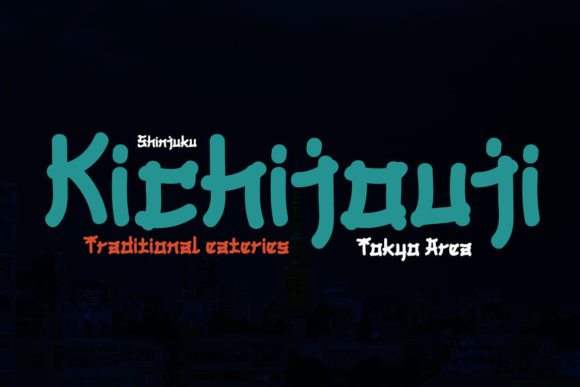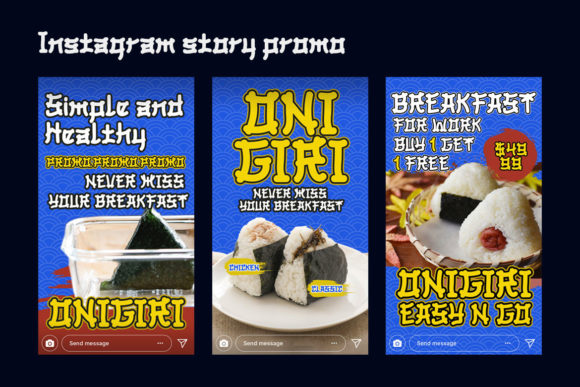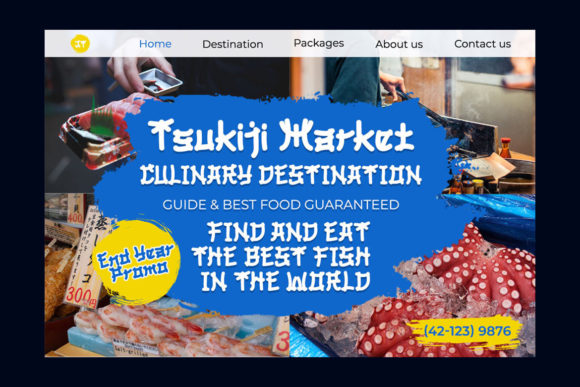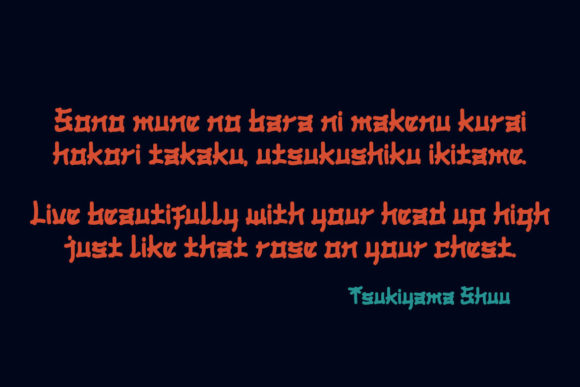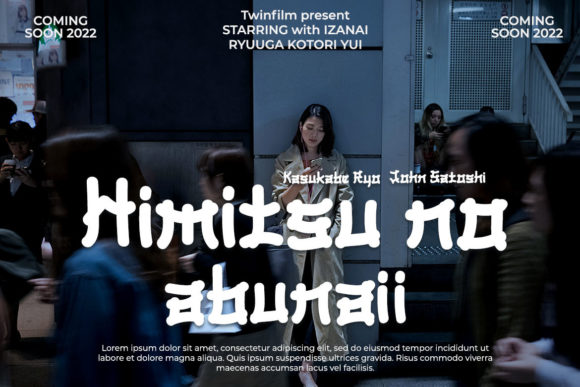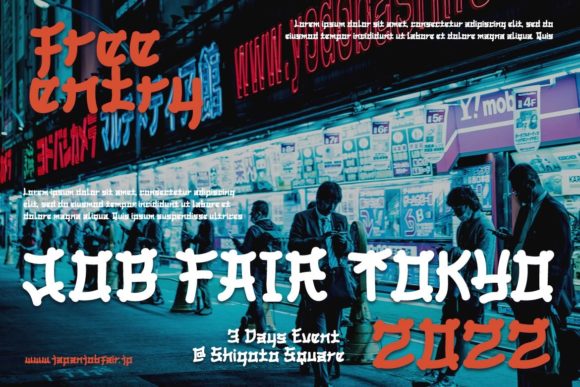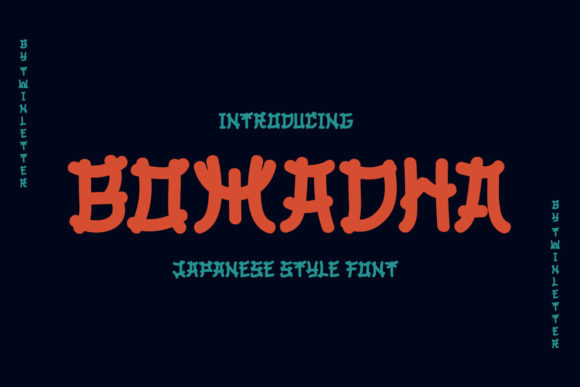
Bomadha Font: A Japanese-Inspired Display Font for Stunning Designs
Are you a designer or crafter looking for a unique and eye-catching font to elevate your visual projects? Look no further than Bomadha Font, an incredibly unique, Japanese-inspired display font that is sure to make your designs stand out. In this article, we’ll explore the features and benefits of Bomadha Font, and how it can be used to create stunning designs for food menus, posters, flyers, and more.
What is Bomadha Font?
Bomadha Font is a display font inspired by Japanese typography, characterized by its bold, expressive, and artistic style. The font features a distinctive blend of traditional Japanese elements and modern design sensibilities, making it perfect for designers who want to add a touch of cultural flair to their work.
Key Features of Bomadha Font
- Unique and eye-catching design: Bomadha Font boasts a one-of-a-kind design that is sure to grab attention and leave a lasting impression.
- Japanese-inspired style: The font’s Japanese inspiration adds a touch of cultural sophistication and elegance to any design.
- Bold and expressive: Bomadha Font is perfect for making a statement, with its bold and expressive lettering that demands attention.
- Highly versatile: The font can be used for a wide range of design projects, from food menus and posters to flyers and print materials.
Uses for Bomadha Font
Bomadha Font is an incredibly versatile font that can be used for a variety of design projects, including:
- Food menus: Add a touch of Japanese flair to your restaurant’s menu with Bomadha Font, and make your dishes look as delicious as they taste.
- Posters and flyers: Use Bomadha Font to create eye-catching posters and flyers that grab attention and communicate your message effectively.
- Print materials: From business cards to brochures, Bomadha Font is perfect for adding a touch of sophistication and elegance to your print materials.
Benefits of Using Bomadha Font
So why should you choose Bomadha Font for your design projects? Here are just a few benefits of using this amazing font:
- Stand out from the crowd: With Bomadha Font, you can create designs that are truly unique and eye-catching, setting you apart from the competition.
- Endless possibilities: With Bomadha Font, the possibilities are endless – use it for a wide range of design projects, from digital to print.
Tips for Using Bomadha Font
To get the most out of Bomadha Font, here are a few tips to keep in mind:
- Experiment with different sizes and colors: Bomadha Font looks great in a variety of sizes and colors, so don’t be afraid to experiment and find the perfect combination for your design.
- Pair it with other fonts: Bomadha Font pairs well with a range of other fonts, so try combining it with different fonts to create a unique and interesting design.
- Use it sparingly: While Bomadha Font is bold and eye-catching, it can be overwhelming if used too much. Use it sparingly to create a focal point in your design.